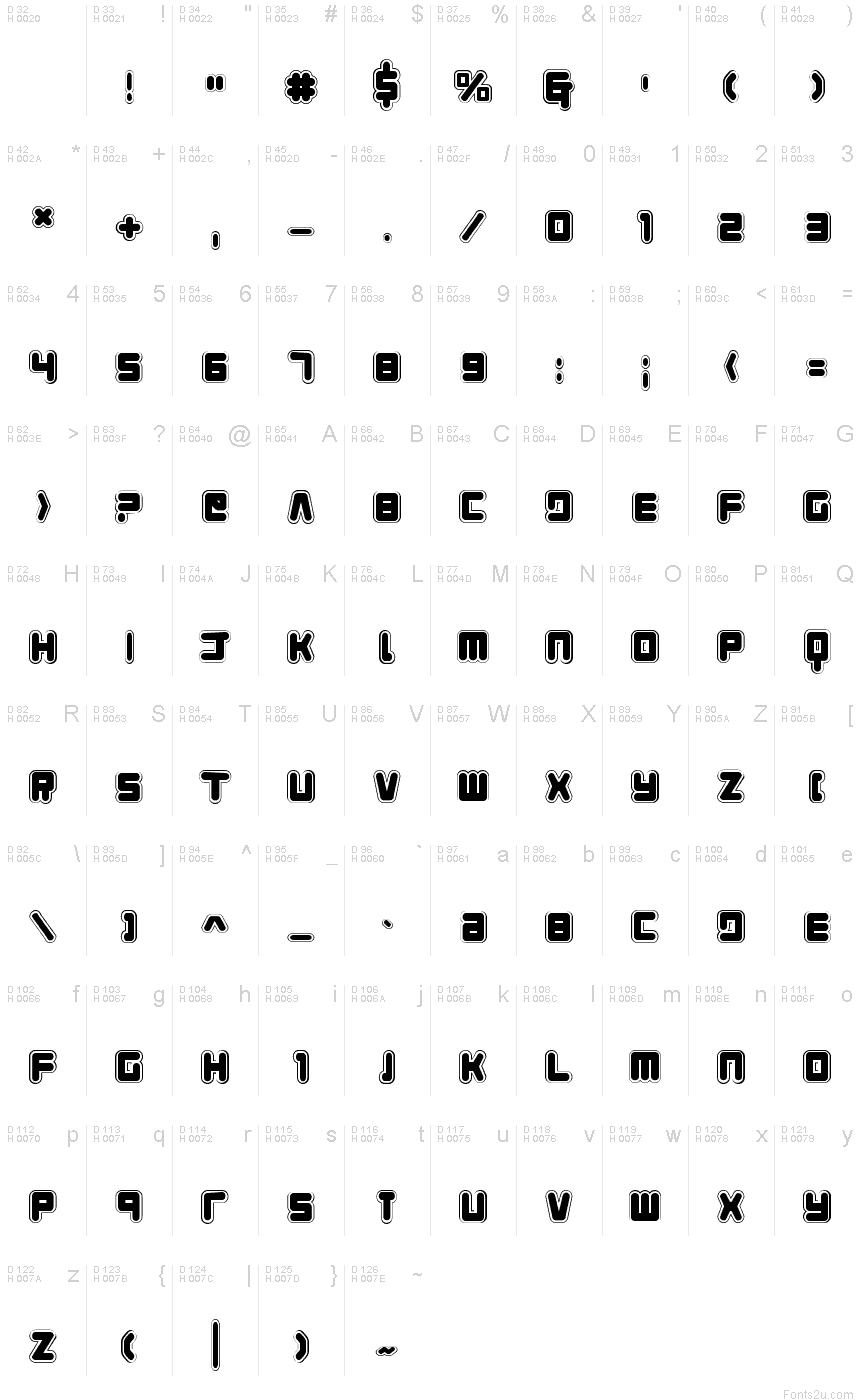
Young Techs Academy, designed by Daniel Zadorozny of Iconian Fonts, is a free retro-futurist outlined display font with broad, rounded caps. Heavy outer contours and narrow inset lines give the forms a layered, molded construction, and several letters use squared internal cuts. It looks straight out of an arcade cabinet.
For audiences drawn to vintage technology and gaming graphics, it is a natural fit for arcade branding, science-fiction posters, and youth event merchandise. Its letterforms can become control-panel labels, team emblems, or machine-like interface elements rather than serving only as ordinary text.